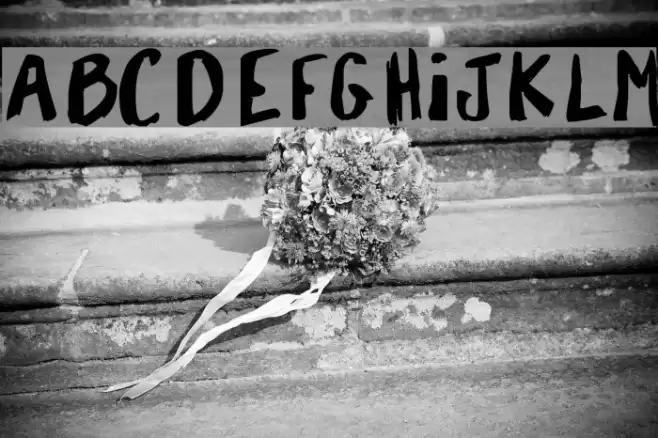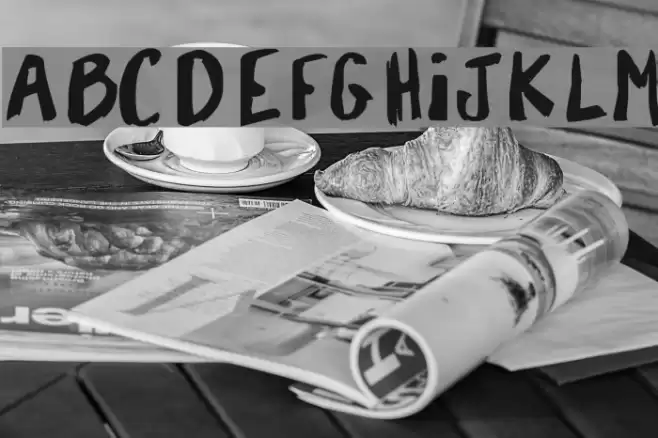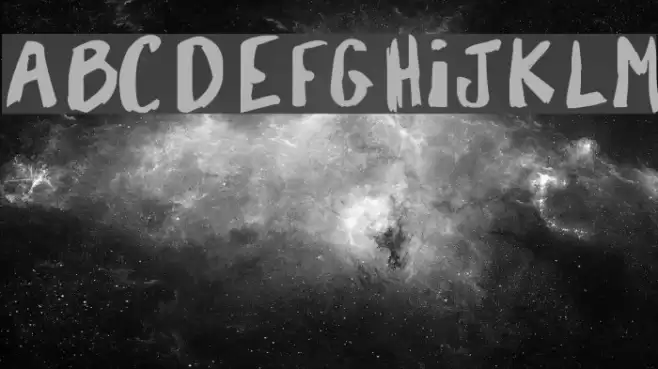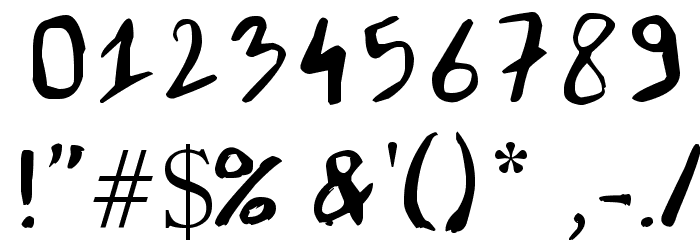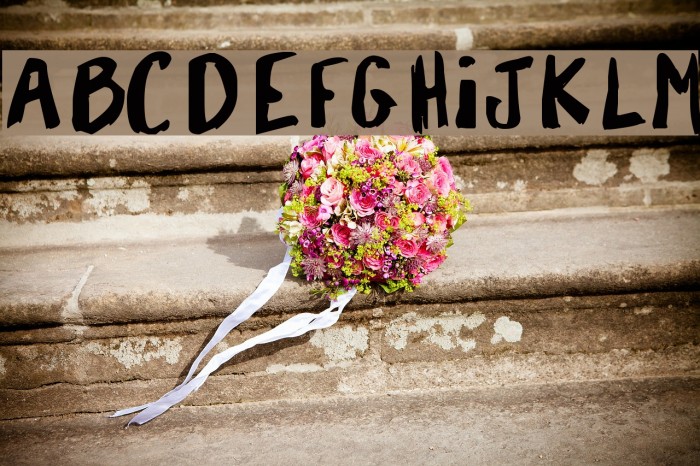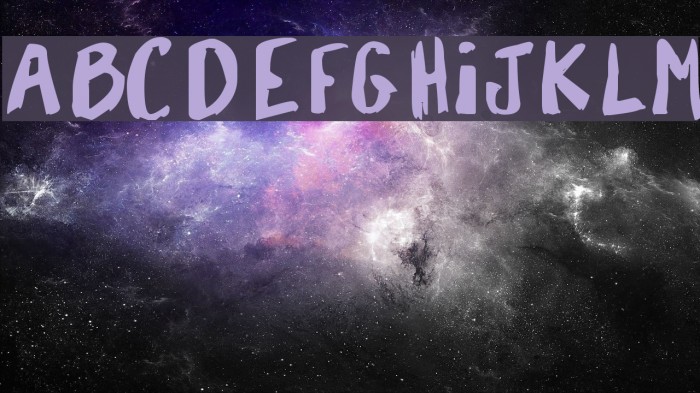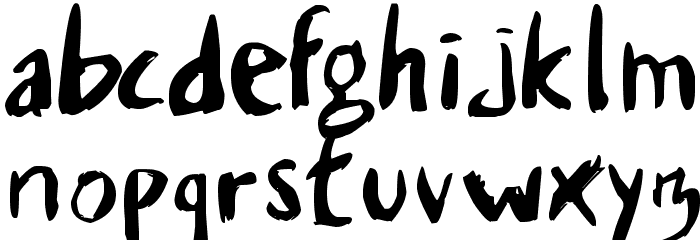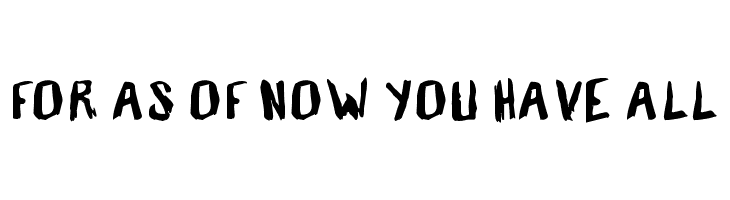
Vaille3 Font
Vaille3 Description
This font features a bold, hand-painted style with an expressive and artistic flair. The characters are uneven and slightly irregular, giving it a dynamic and energetic appearance. The strokes are thick and varied, with a brush-like texture that adds a sense of movement and spontaneity. The uppercase letters are bold and prominent, while the lowercase letters maintain a playful and casual feel. Numbers and special characters follow the same artistic style, making the font versatile for creative projects. The overall look is informal and eye-catching, suitable for designs that require a personal touch.
A bold, hand-painted font with an expressive, artistic style from Handwritten fonts.
- Proposed Projects: Ideal for posters, artistic branding, creative invitations, and any project needing a personal, hand-crafted touch.
- Overall Style: Artistic, Energetic, Informal
- Use Case: Headlines, Posters, Artistic Branding